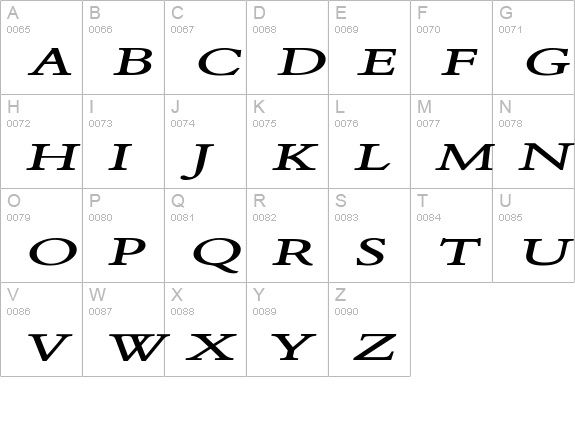
Nadine 2 Extended BoldItalic Font Details
Nadine 2 Extended BoldItalic is a distinctive, extended-width variant in the Nadine typeface family \xE2\x80\x94 well suited to design and typography projects.
Nadine 2 Extended BoldItalic font exudes a sense of bold elegance and sophistication, making it an ideal choice for projects that require a touch of modernity and flair. Its sleek curves and unique styling give any design a contemporary edge, while its bold italic variation adds a dynamic and eye-catching element. Whether used for headlines, branding, or editorial purposes, Nadine 2 Extended BoldItalic font commands attention and leaves a lasting impression. Best of all, Nadine 2 Extended BoldItalic font is available for free download at FontsMarket.com, allowing designers and creatives to access this striking typeface effortlessly. Don't miss out on the opportunity to elevate your projects with the distinctive charm and versatility of Nadine 2 Extended BoldItalic font - download it today and add a touch of bold sophistication to your designs.